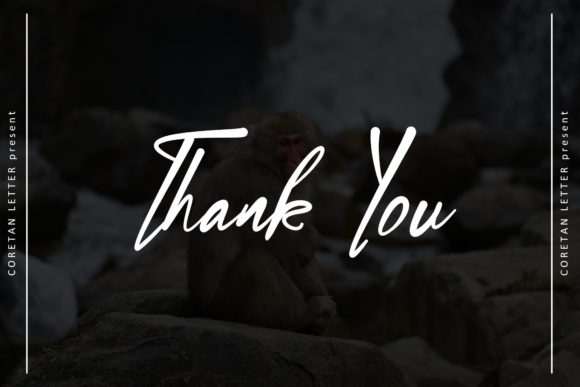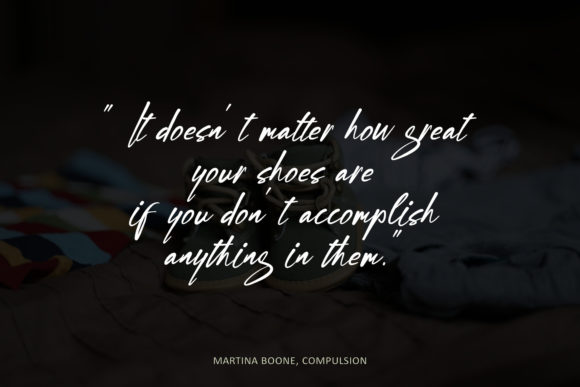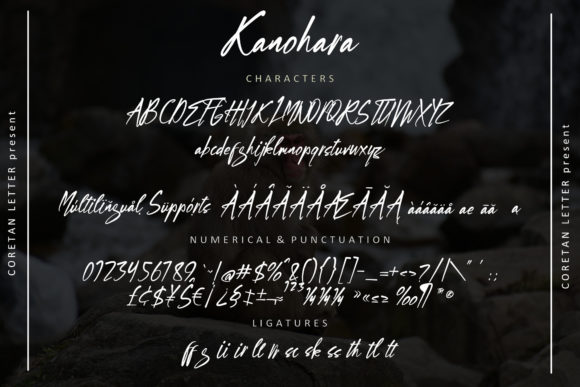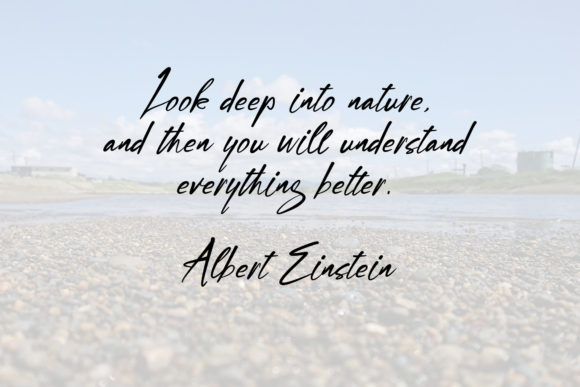
Introduction to Kanohara Font
Kanohara feels equally charming and elegant.
It features an incredibly classic style, while still keeping a friendly feel This font is the perfect choice for creating outstanding designs.
Key Features of Kanohara Font
Why Choose Kanohara Font?
Kanohara Font offers exceptional quality and versatility, making it a valuable addition to your design toolkit. Whether you’re creating for personal projects or commercial use, Kanohara Font delivers professional results.